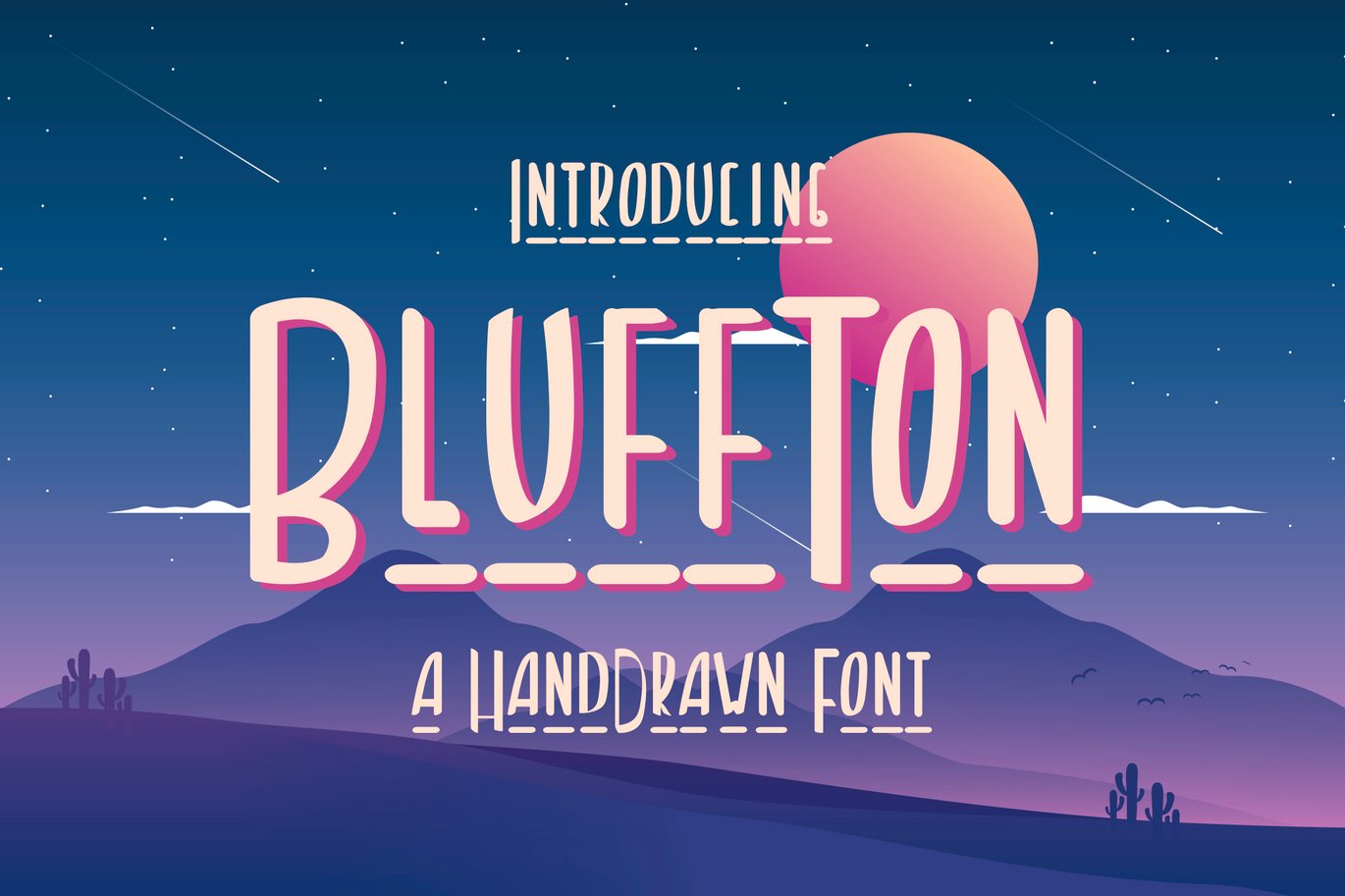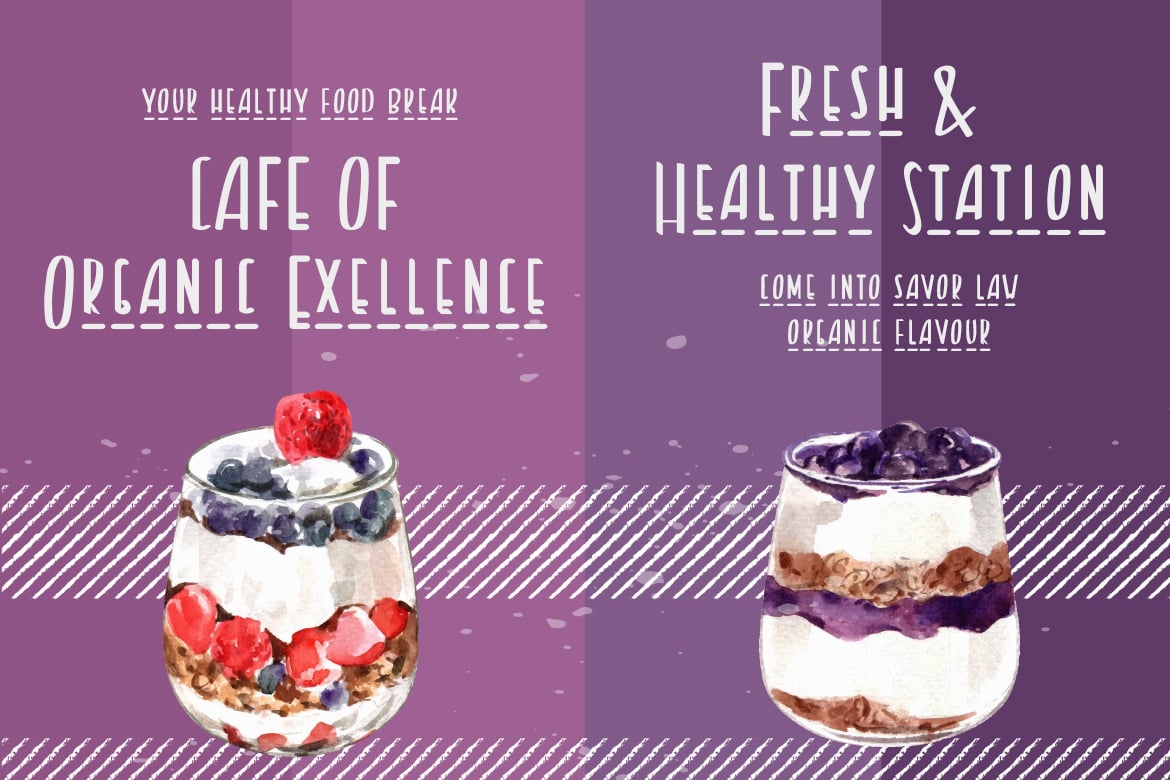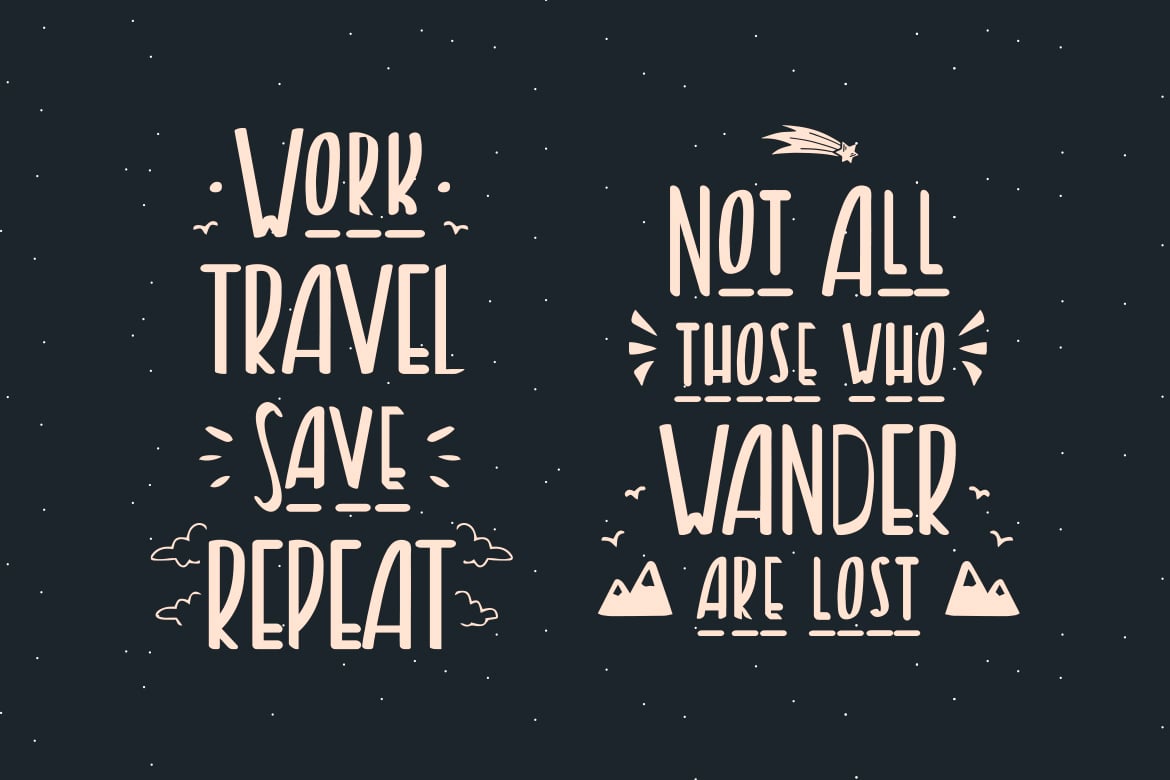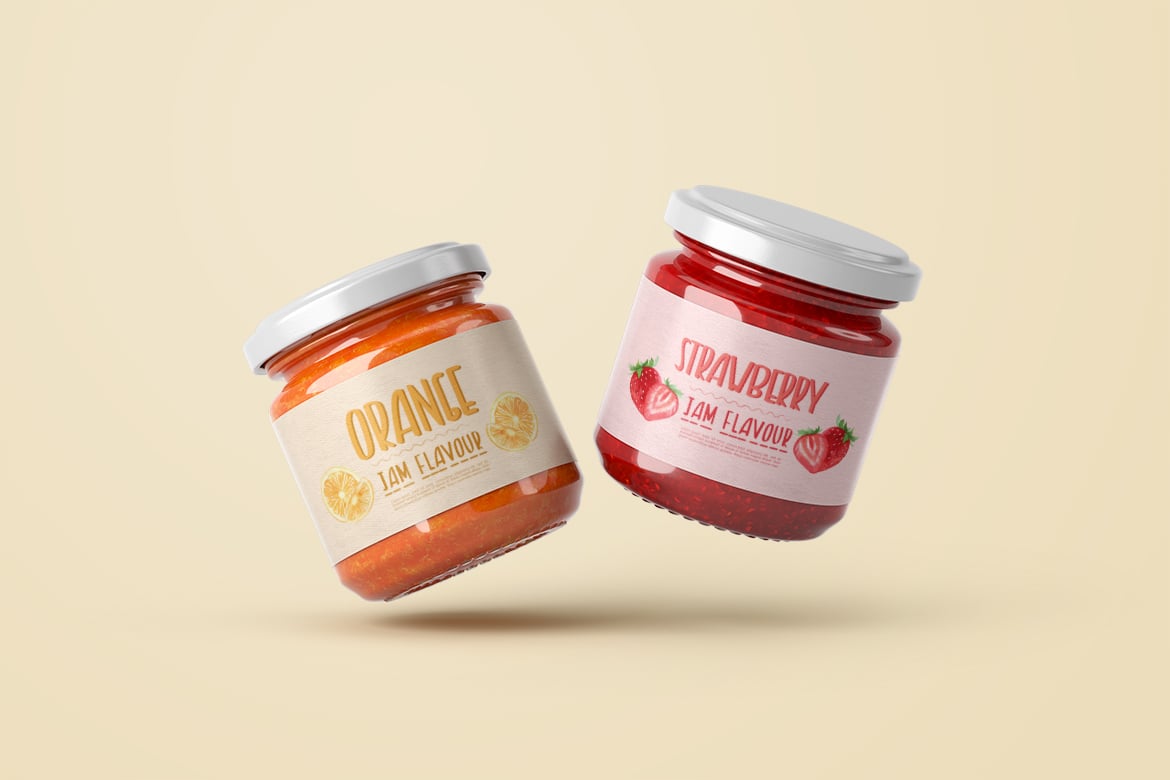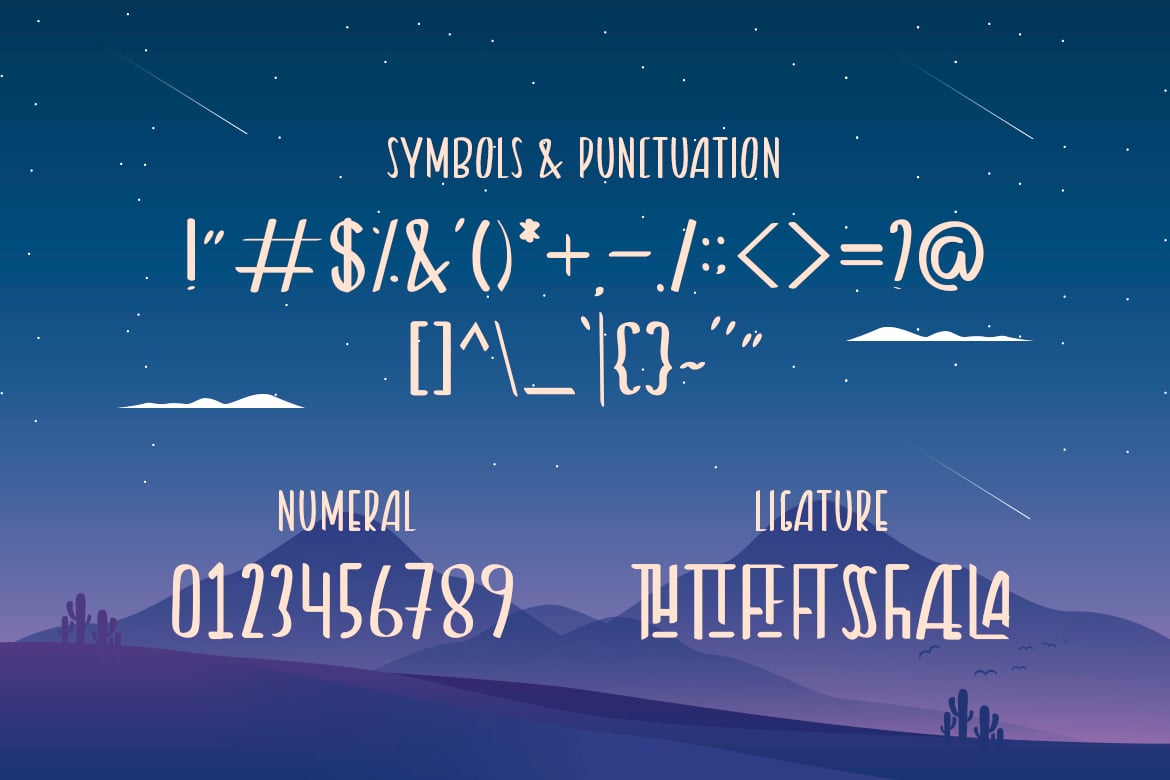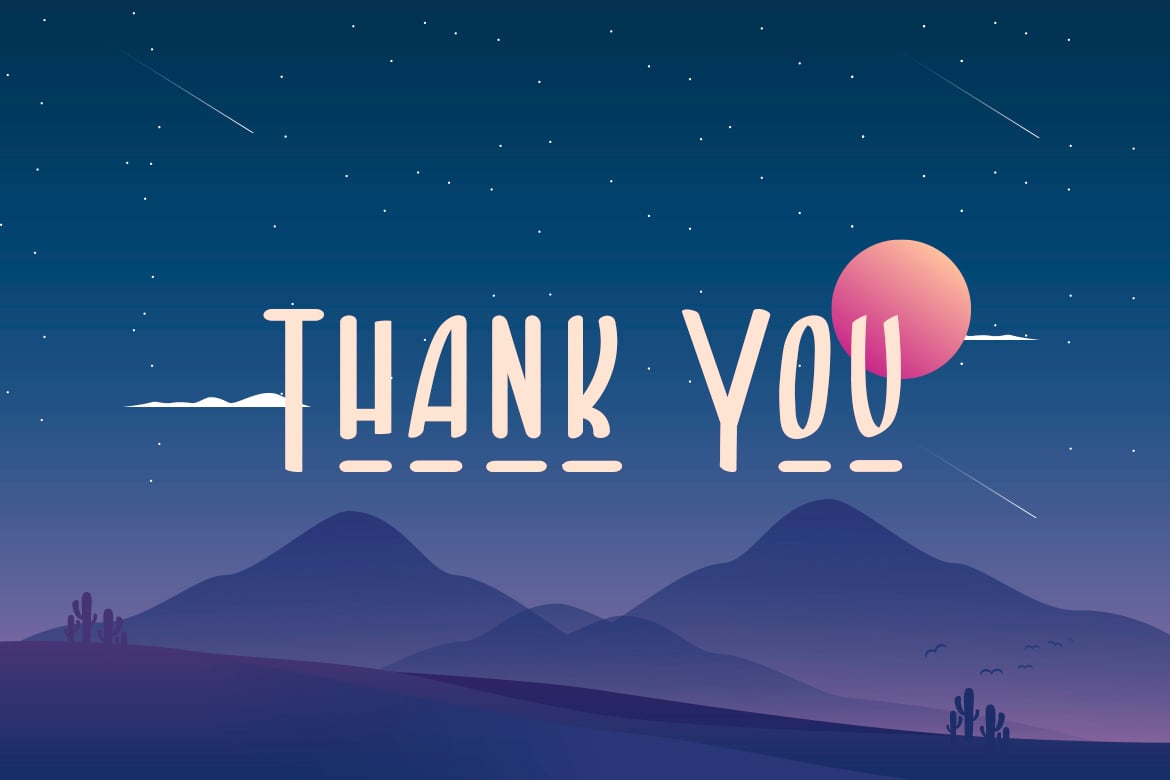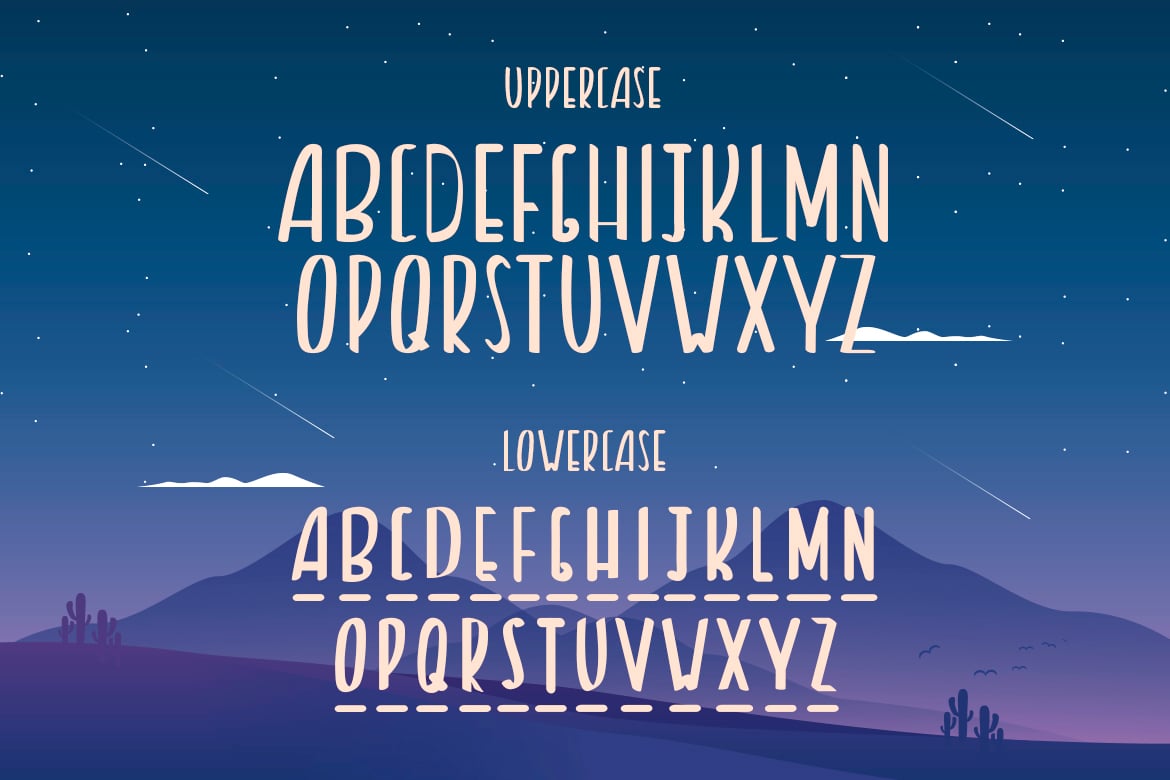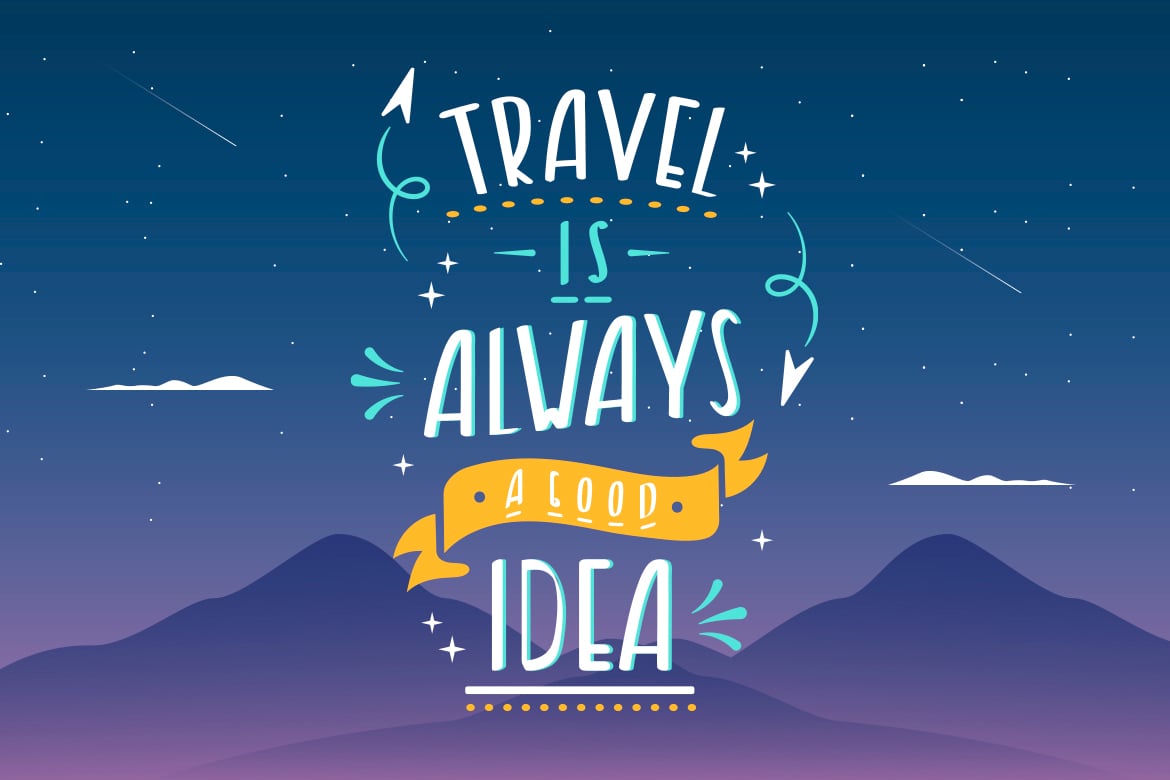
Bluffton – Decorative Hand Drawn Font
Bluffton font is really great for a birthday card, thanksgiving gift card, quotes, headings, birthday invitations, posters, brand, food menu, and many others.
– Alternates